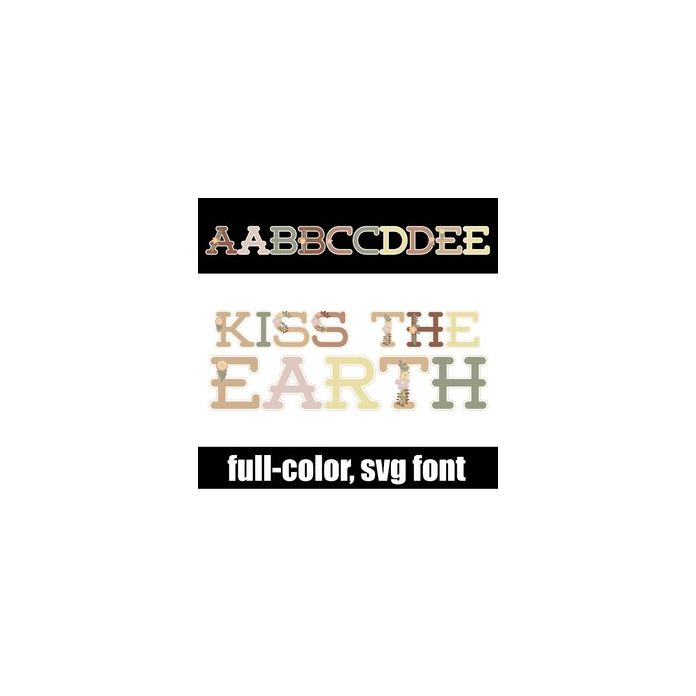
This full-color font features a slab serif font in earthy colors and pretty florals throughout. There is an alt case with additional colors that you can access through your system or Silhouette's glyph map.